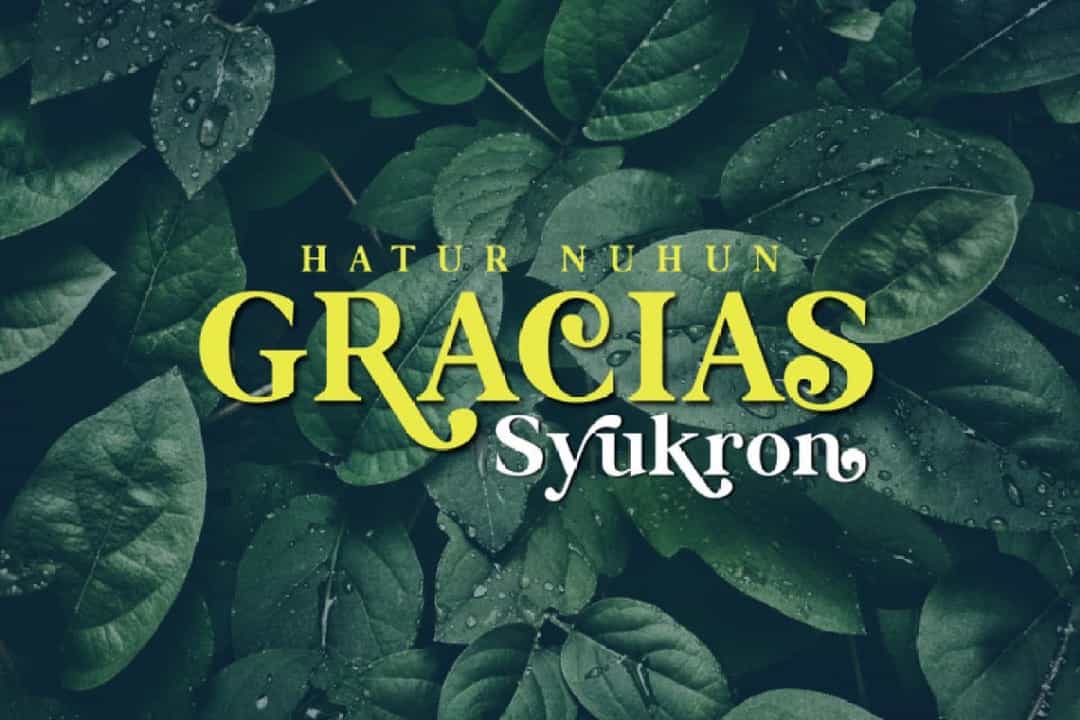
Magical Source is a simple and beautiful serif font that has more than 200 types of fonts for the uppercase and lowercase letters to help them to express themselves more freely when combining them. However, you cannot alter the system’s design in any way.